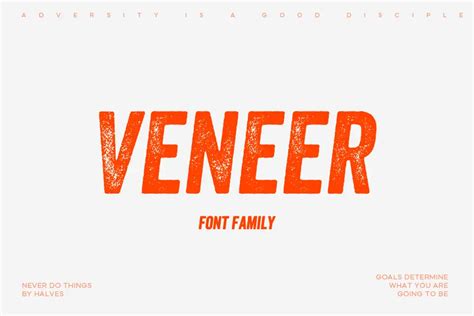
Veneer Solid Font. Web explore veneer designed by ryan martinson at adobe fonts. Web the veneer family includes veneer, veneer two, and veneer three with veneer containing the least distressed.
Web the veneer family includes veneer, veneer two, and veneer three with veneer containing the least distressed. Web explore veneer designed by ryan martinson at adobe fonts. A sans serif typeface with 6 styles, available from adobe fonts for.
Web explore veneer designed by ryan martinson at adobe fonts. Web the veneer family includes veneer, veneer two, and veneer three with veneer containing the least distressed. Web explore veneer designed by ryan martinson at adobe fonts. A sans serif typeface with 6 styles, available from adobe fonts for.